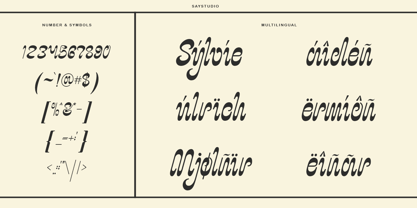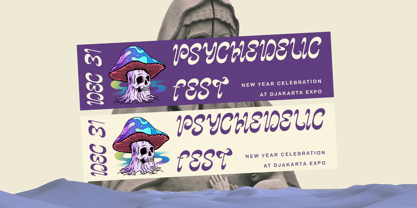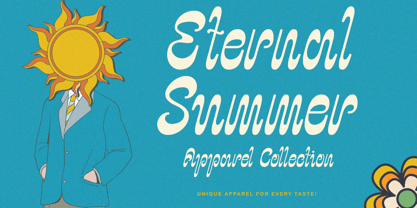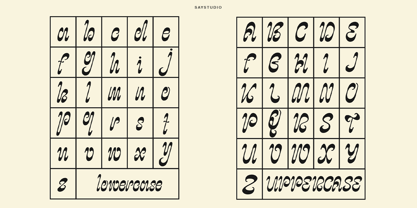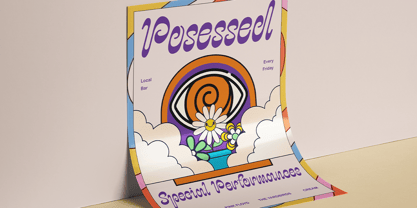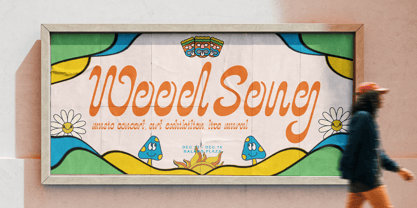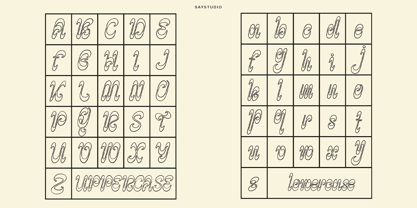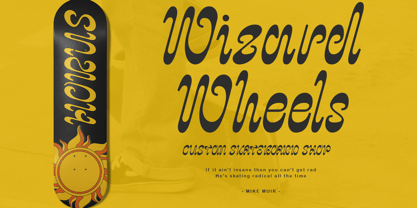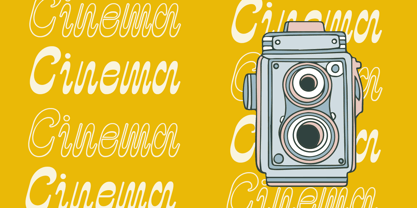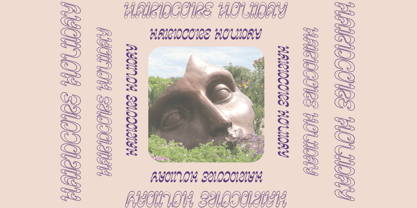
Psychodelic
by Say Studio
The Psychodelic Font Family was designed by Mussyayin and published by Say Studio. Psychodelic contains 2 styles and family package options. More about this family
Psychodelic is psychedelic italic typeface. Smooth italic letters create a groovy nostalgia style. Whether used for branding, editorial design, or eye-catching headlines, Psychodelic demands attention and leaves a timeless. Elevate your designs with the enigmatic allure with Psychodelic and stand out in today's.
- Psychodelic
- Psychodelic Outline
Designers: Mussyayin
Current Foundry: Say Studio